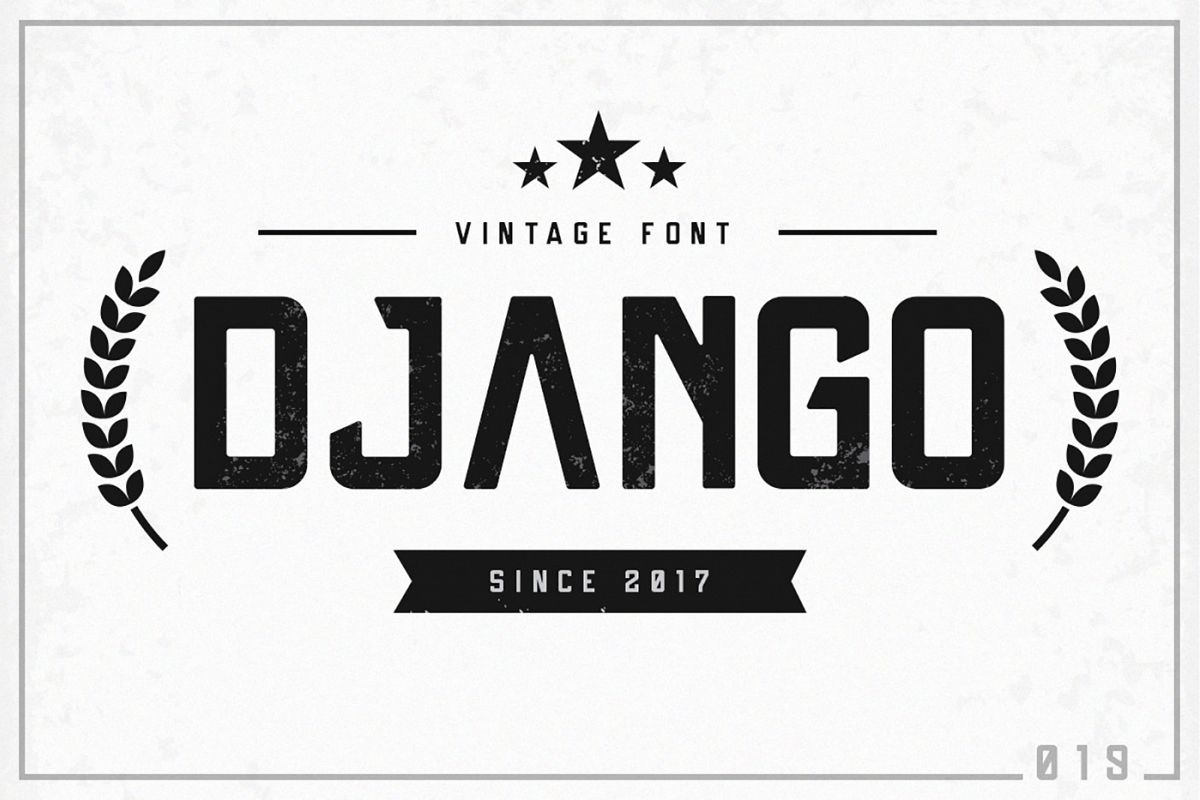
Django
Django-Regular
Django is a fun and vintage font, to simulate your lovely design. Perfect for many different projects: quotes, blog header, poster, wedding, branding, logo, fashion, apparel, letter, invitation, stationery, etc.